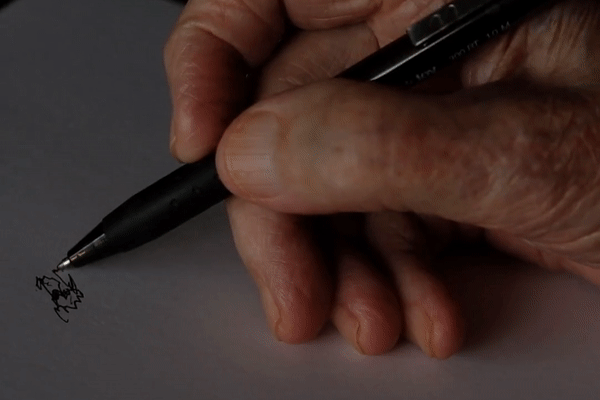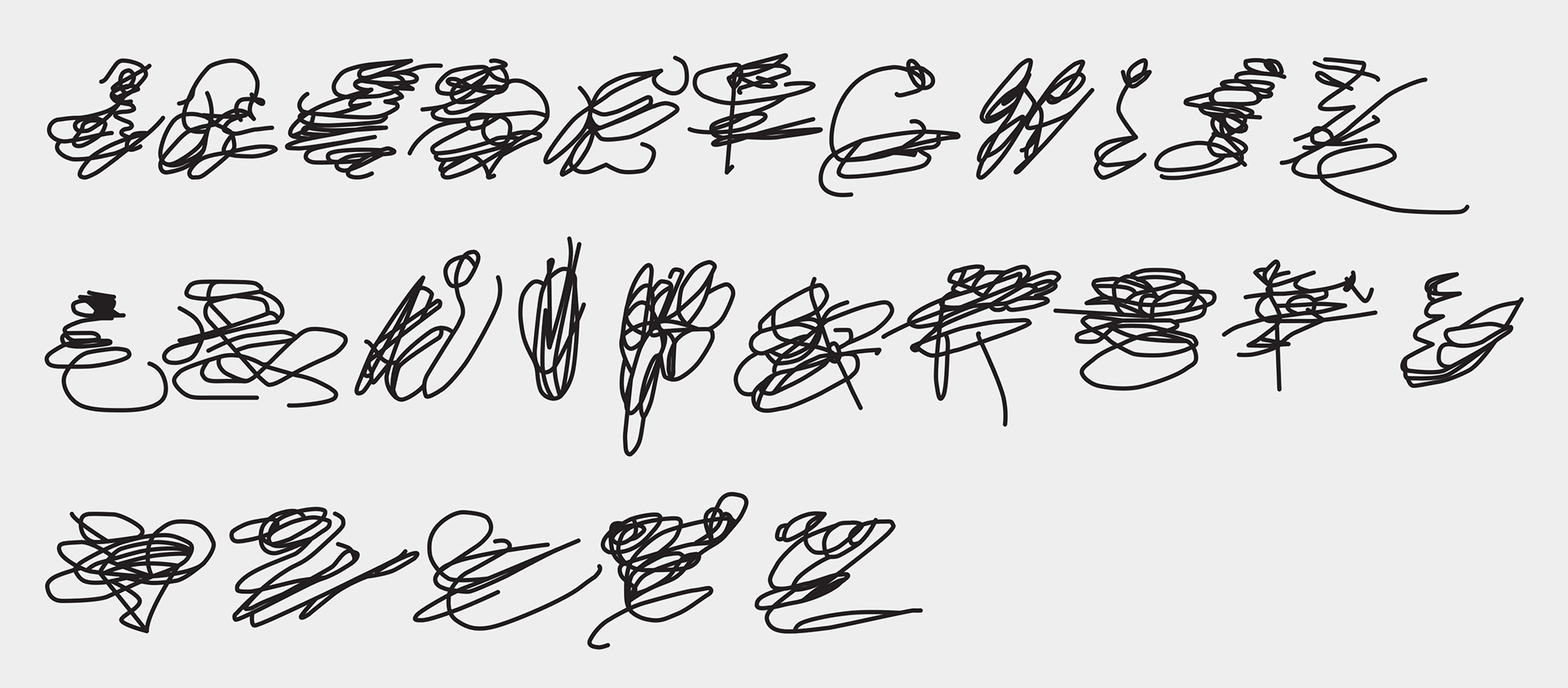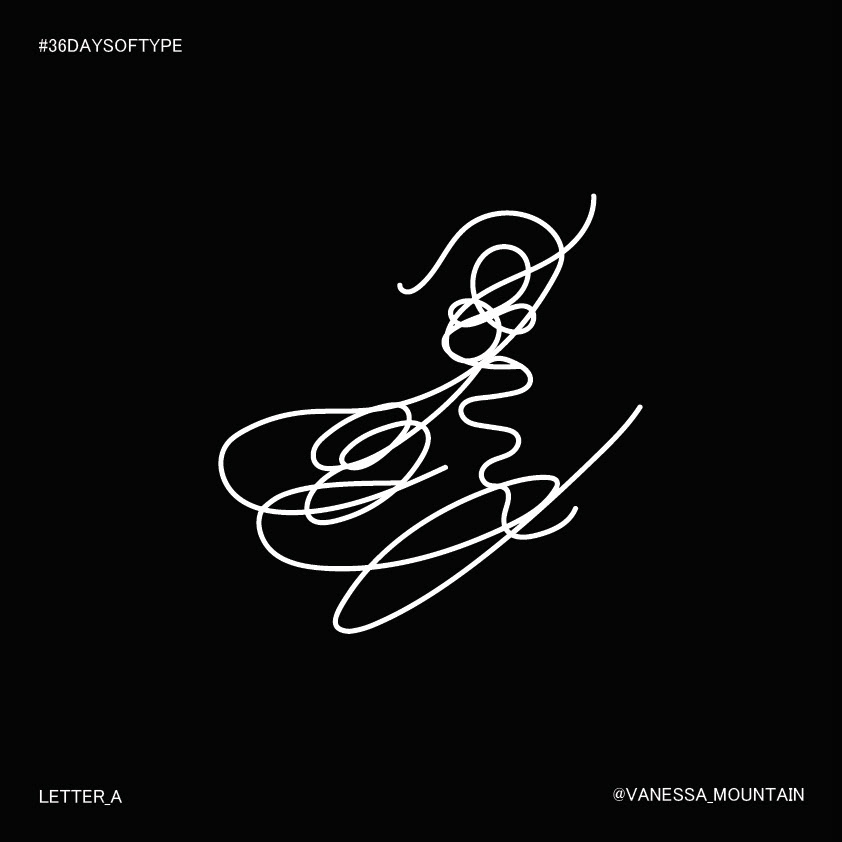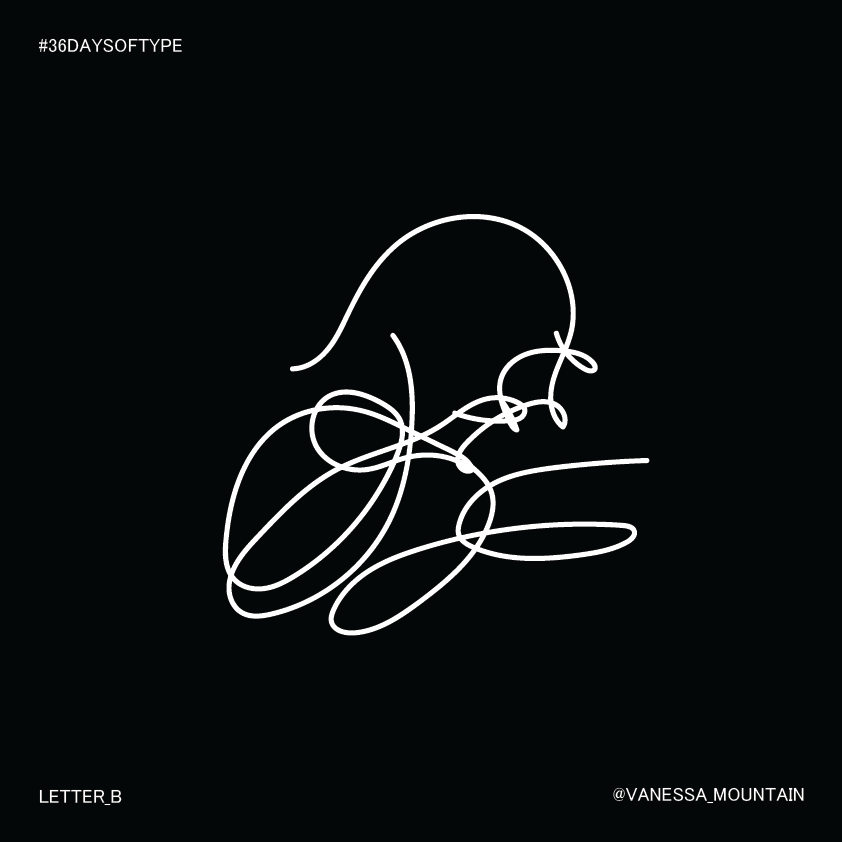
Bernard Mountain
March 10th 1928 - March 26th 2021
My Grandad Bernard writing his name.
DEMENTIA TYPEFACE
A person's handwriting is personal, and honestly out of everything I’ve kept of my grandparents - the most unique and sentimental. Since their passing, their handwriting almost feels like the embodiment of all their well-wishes. Every birthday card, every gift tag, every handwritten caption in a photo album.
For #36DaysOfType, I decided to revisit this project, adding more details and animations.